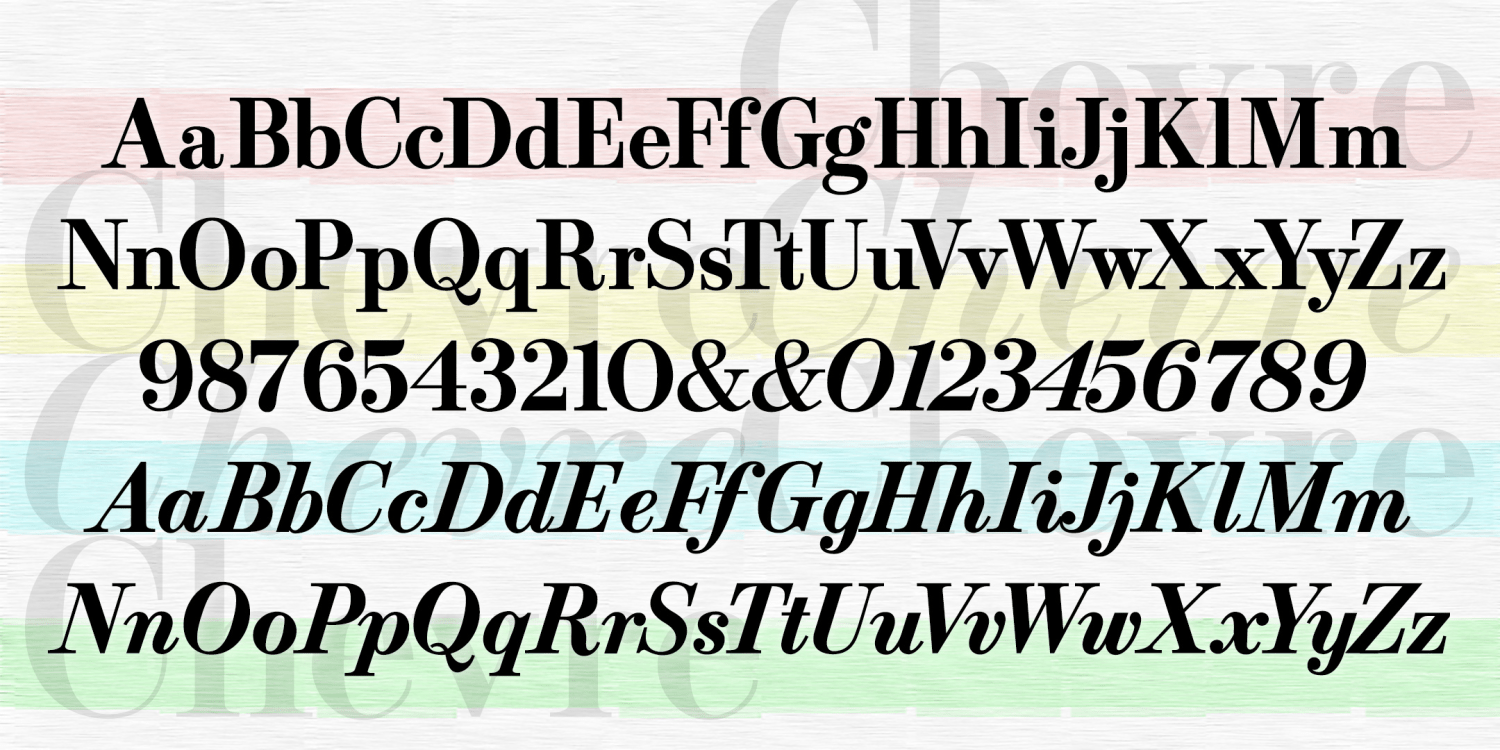
Chevre Bold Italic
Stylish and graceful, the CHEVRE fonts were inspired by roman and italic fonts designed by Mortimer Leach for use by Chevrolet in print ads about 1957-1960. Leach borrowed aspects of Bodoni, Century Schoolbook, and Century Expanded to make his new creation and documented its development in his 1960 book "Letter Design in the Graphic Arts." I've also created Bold version of each for better appearance on screen.